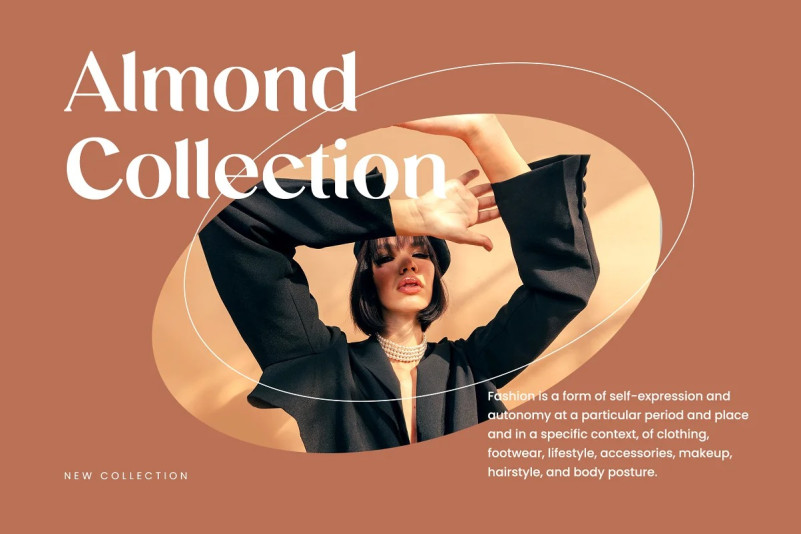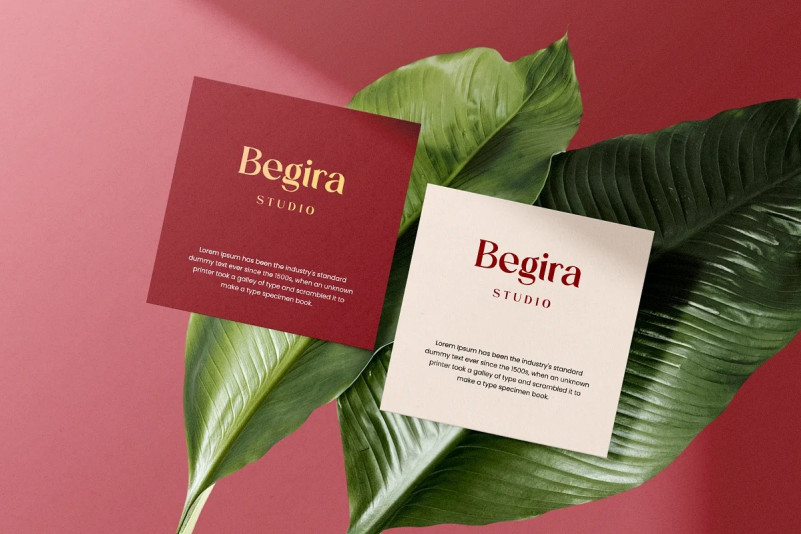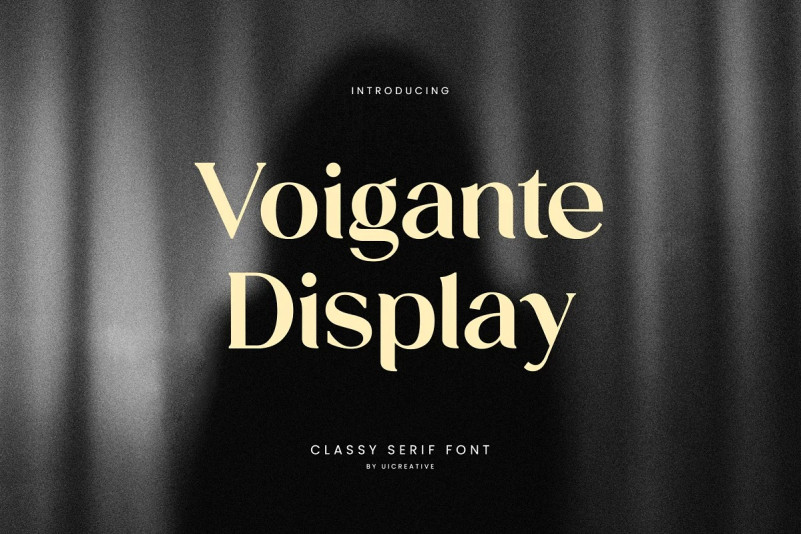
Voigante Display Font
Voigante Display Font – Classic Serif Font. Modern Serif font that feels beautiful classy, elegant, and modern. This font is ideally suited for a wide variety of projects, such as signature, stationery, logo, wedding, typography quotes, magazine or book covers, website headers, clothing, branding, packaging design, and more. Also, fashion-related branding or editorial design displays both masculine and feminine qualities.